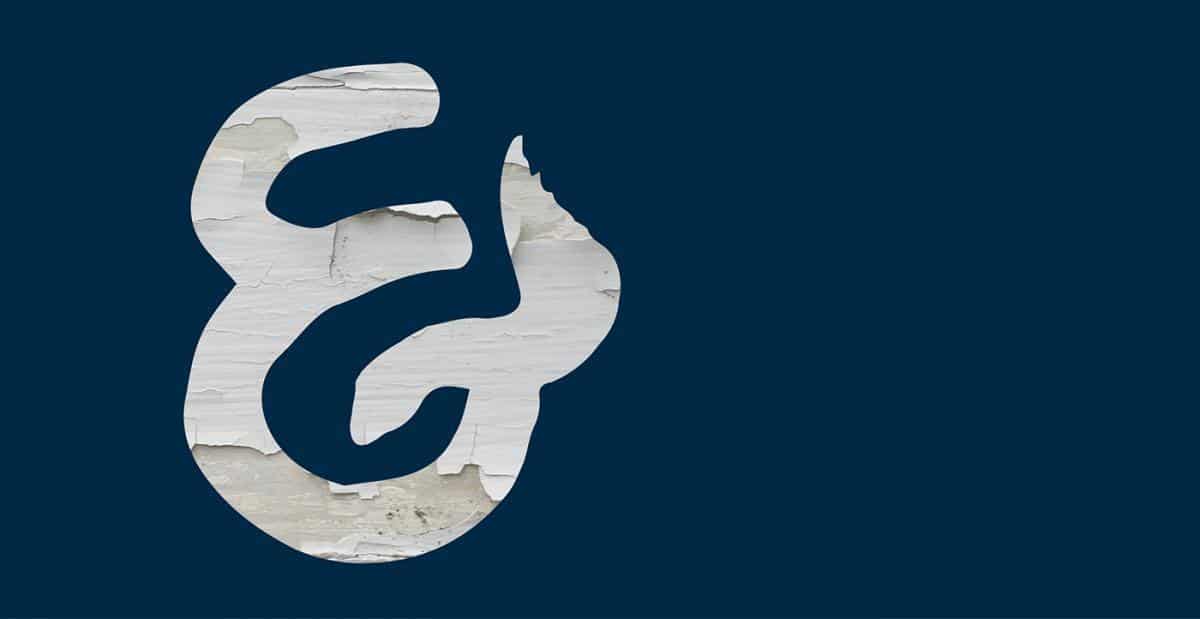
Introducing Flow Brush Font! Rough and imperfect characters give a personal and a naturally hand drawn look to your text, ideal for logos, apparel, quotes, product packaging, or anything which needs a typographic turbo-boost.
- Designer: Dessy Davidova